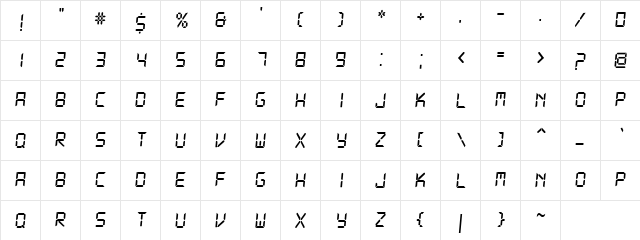
DS-Digital Italic
Design Context for DS-Digital Typeface
DS-Digital has a distinctly futuristic character, with geometric precision and clean angles that feel at home in technology, gaming, and sci-fi contexts. Its italic angle brings a sense of urgency and motion to the letterforms.